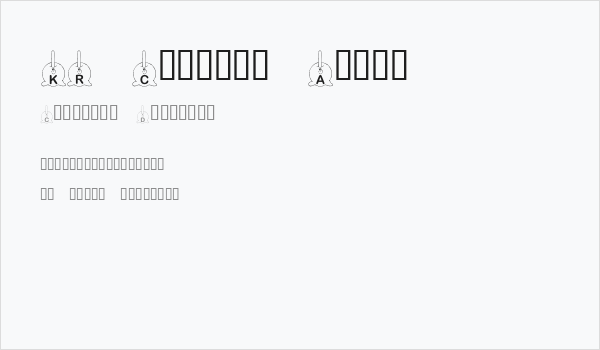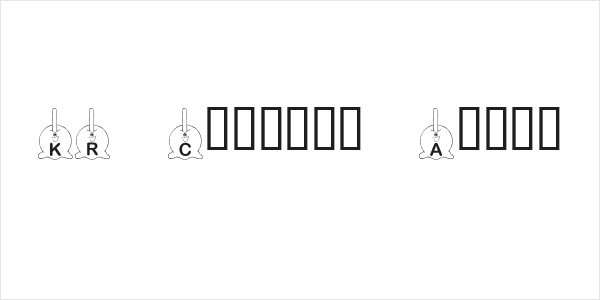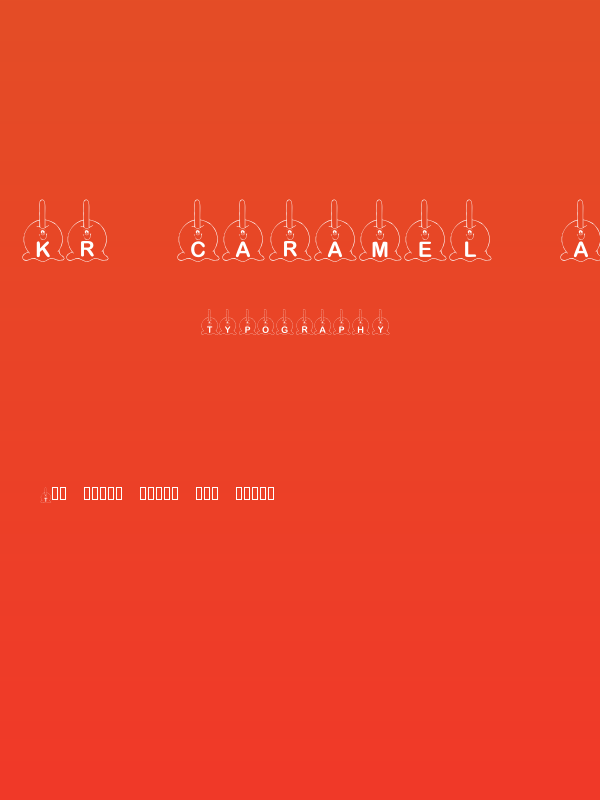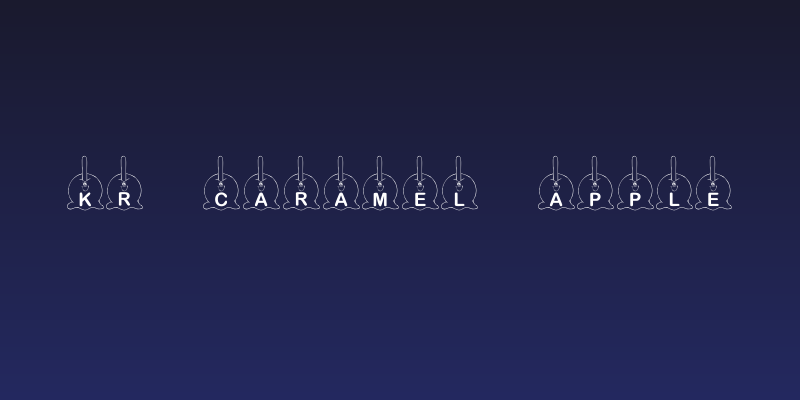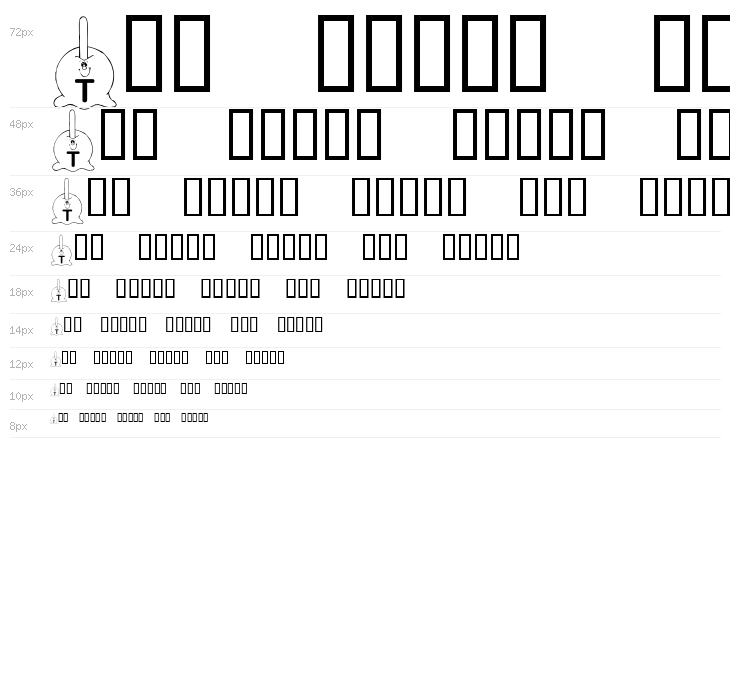
KR Caramel Apple Font
KR Caramel Apple Description
This playful and whimsical font features each character enclosed within a caramel apple shape, complete with a stick protruding from the top. The letters are bold and clear, making them easily readable despite the decorative apple design. The font exudes a fun and festive vibe, perfect for autumn-themed projects or events. The unique presentation of each letter adds a touch of creativity and charm, making it stand out in any design. The consistent apple motif across all characters ensures a cohesive look, while the bold lettering ensures legibility.
| Proposed Projects | Ideal for fall festival posters, Halloween invitations, children's party decorations, and themed restaurant menus. |